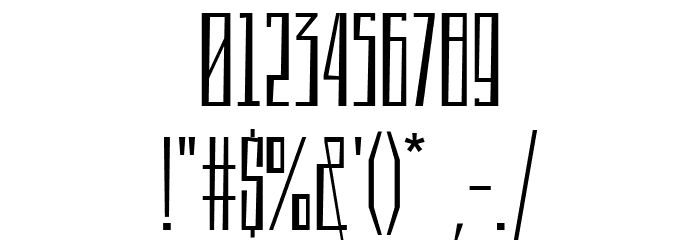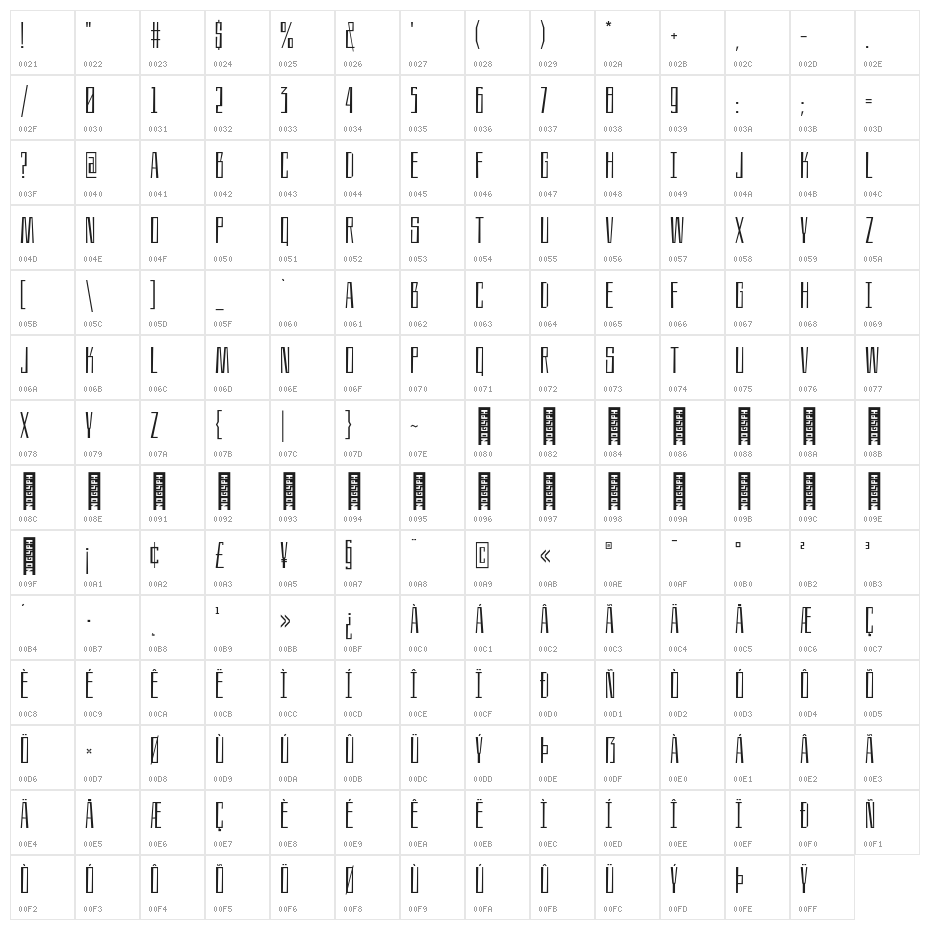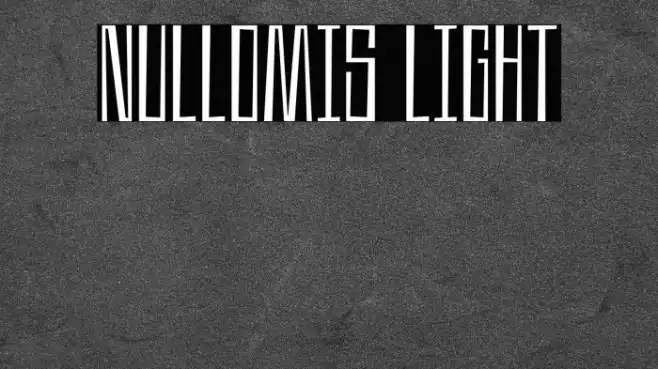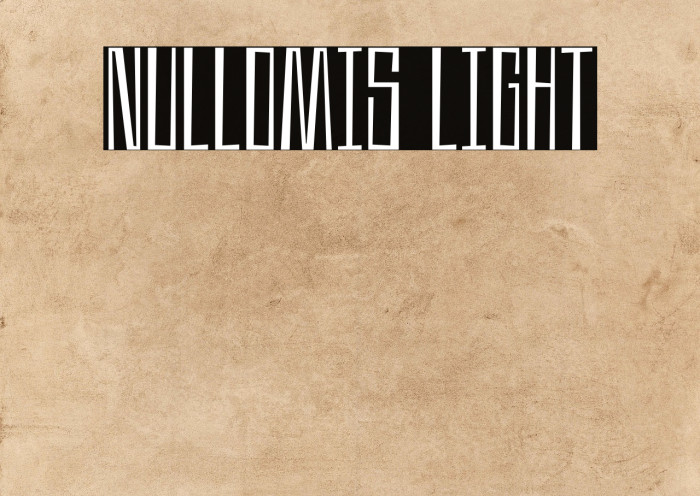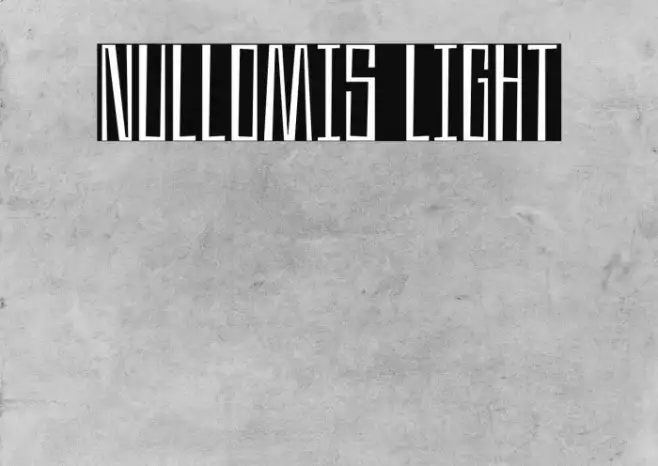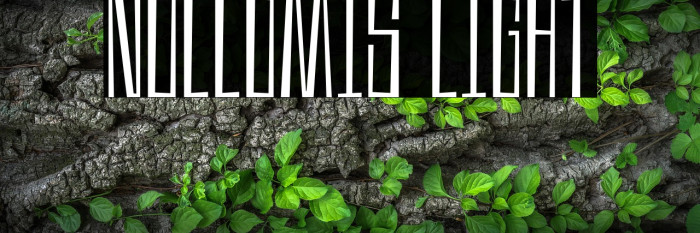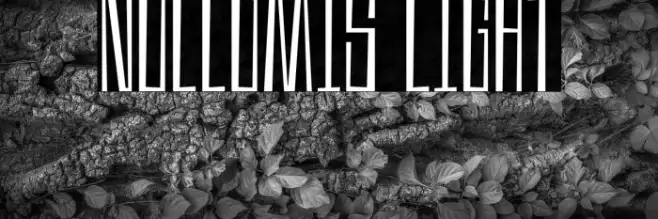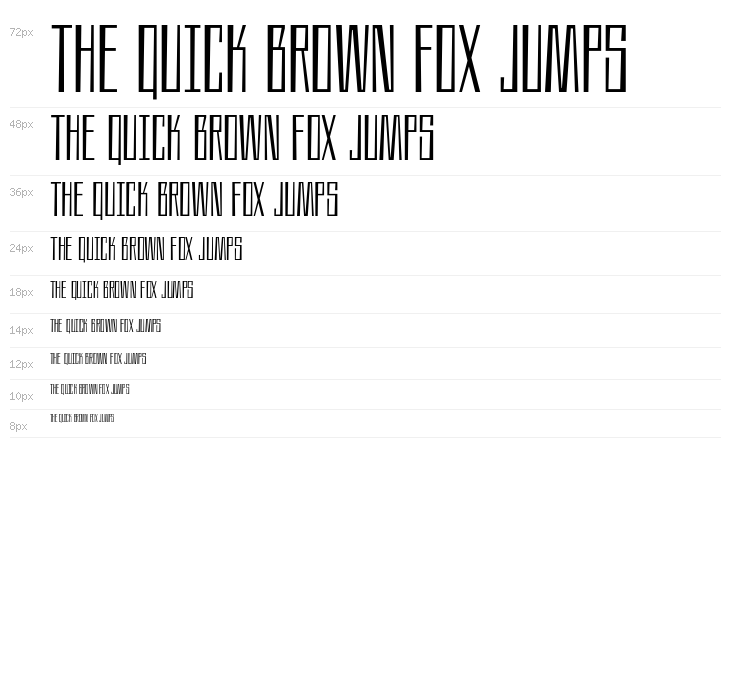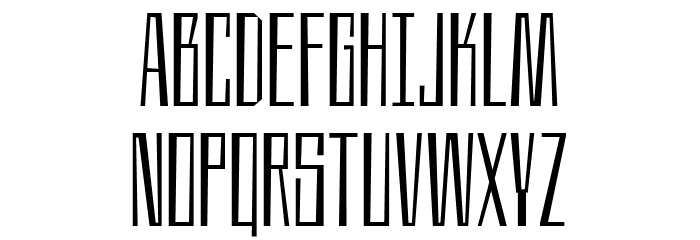
Nullomis Light Font
Nullomis Light Description
This font features a tall and narrow design with a modern and sleek appearance. The characters are elongated with a consistent stroke width, giving it a uniform and structured look. The uppercase and lowercase letters maintain a geometric style, with sharp angles and clean lines. The numerals and special characters follow the same design principles, ensuring a cohesive appearance across all glyphs. The overall aesthetic is minimalistic yet distinctive, making it suitable for projects that require a contemporary and stylish typeface.
| Proposed Projects | Ideal for branding, posters, headlines, and modern web design projects. |